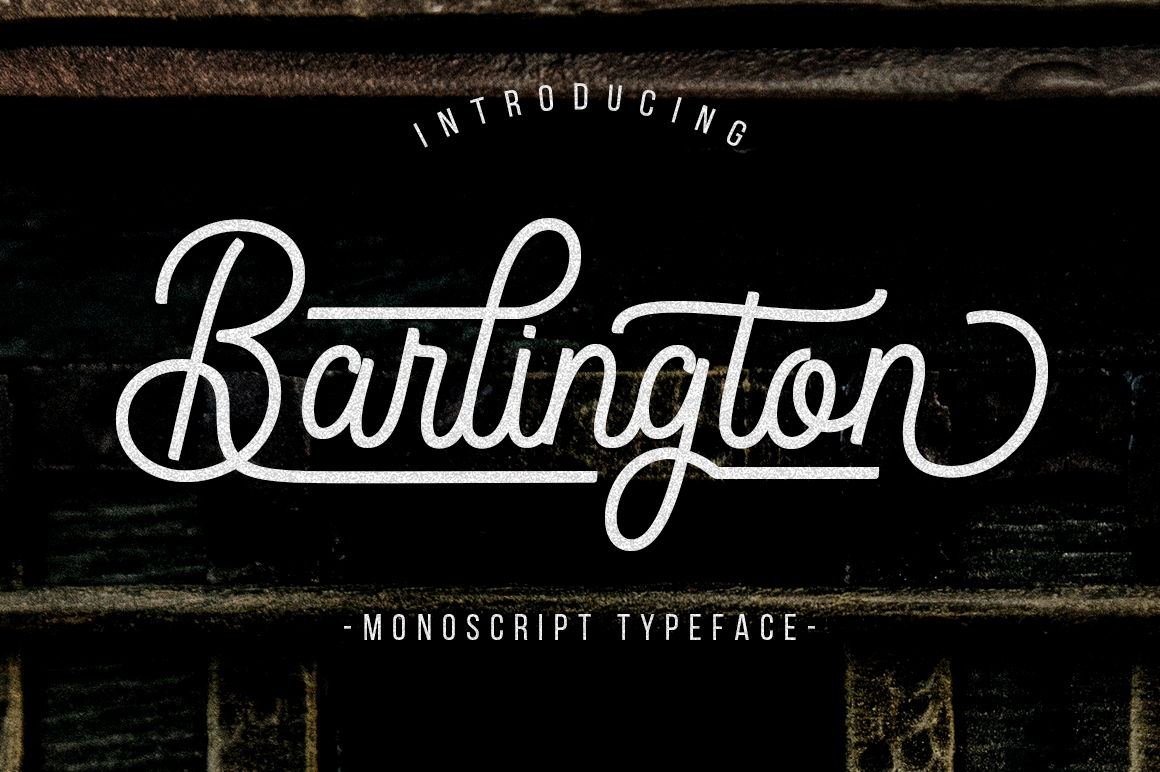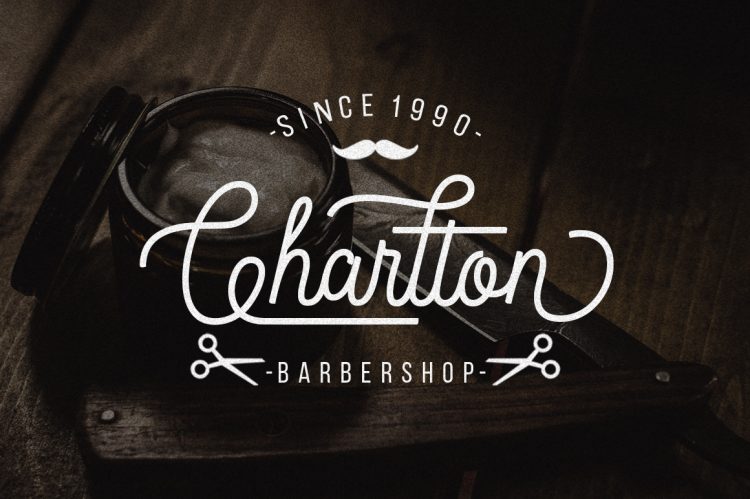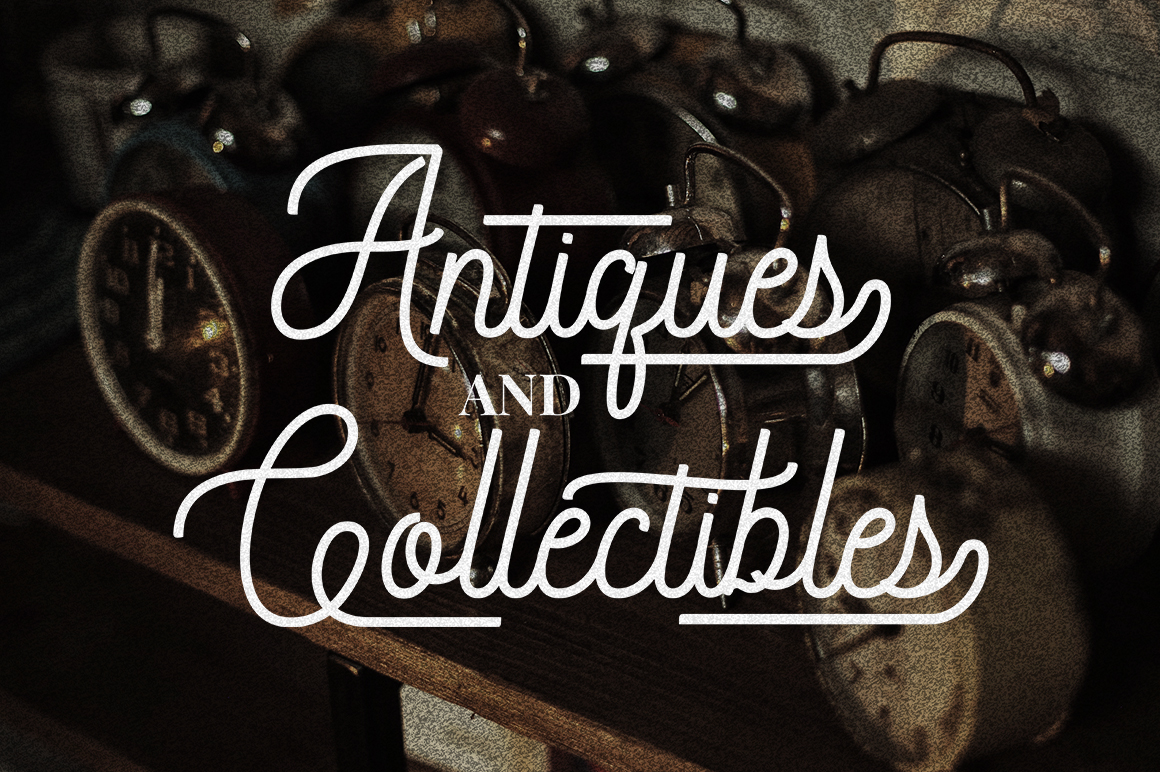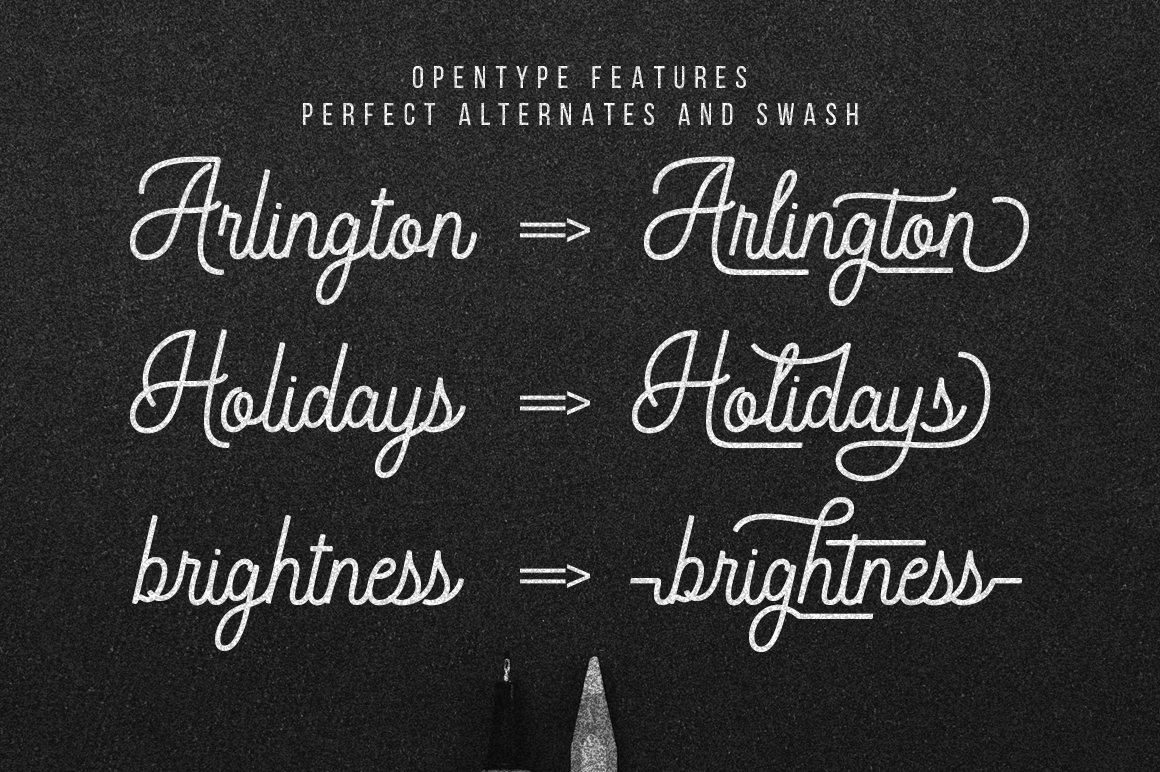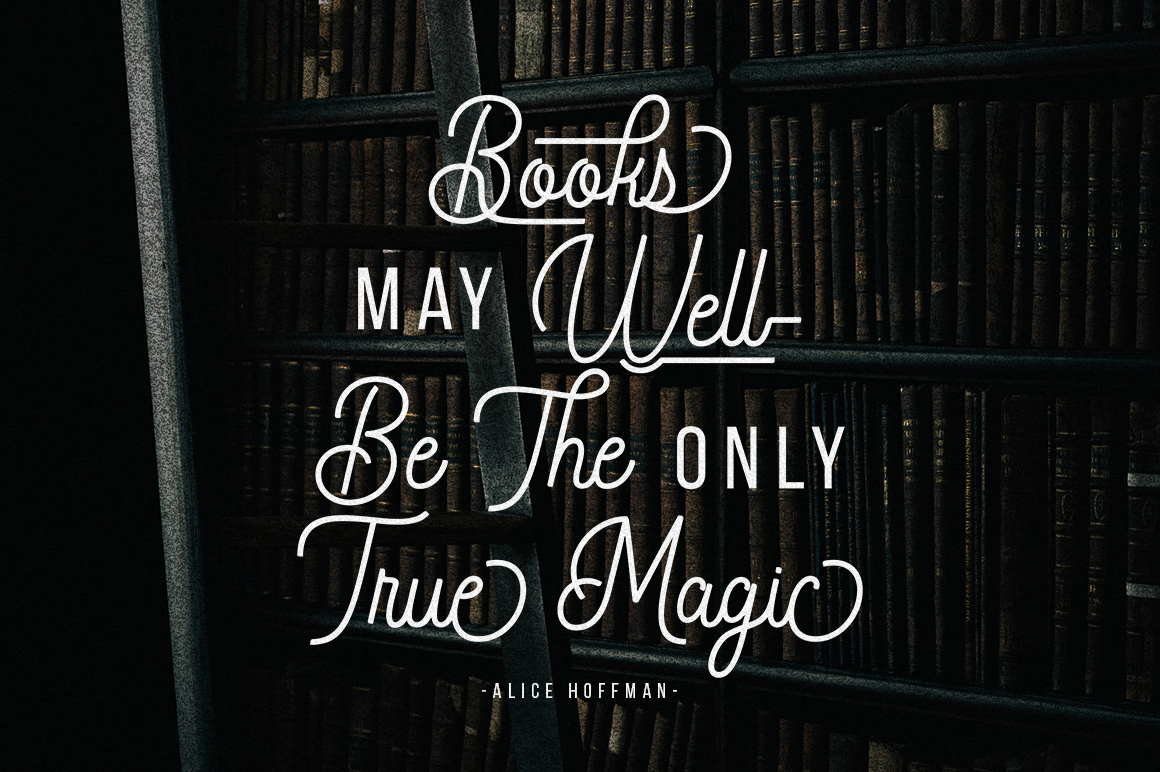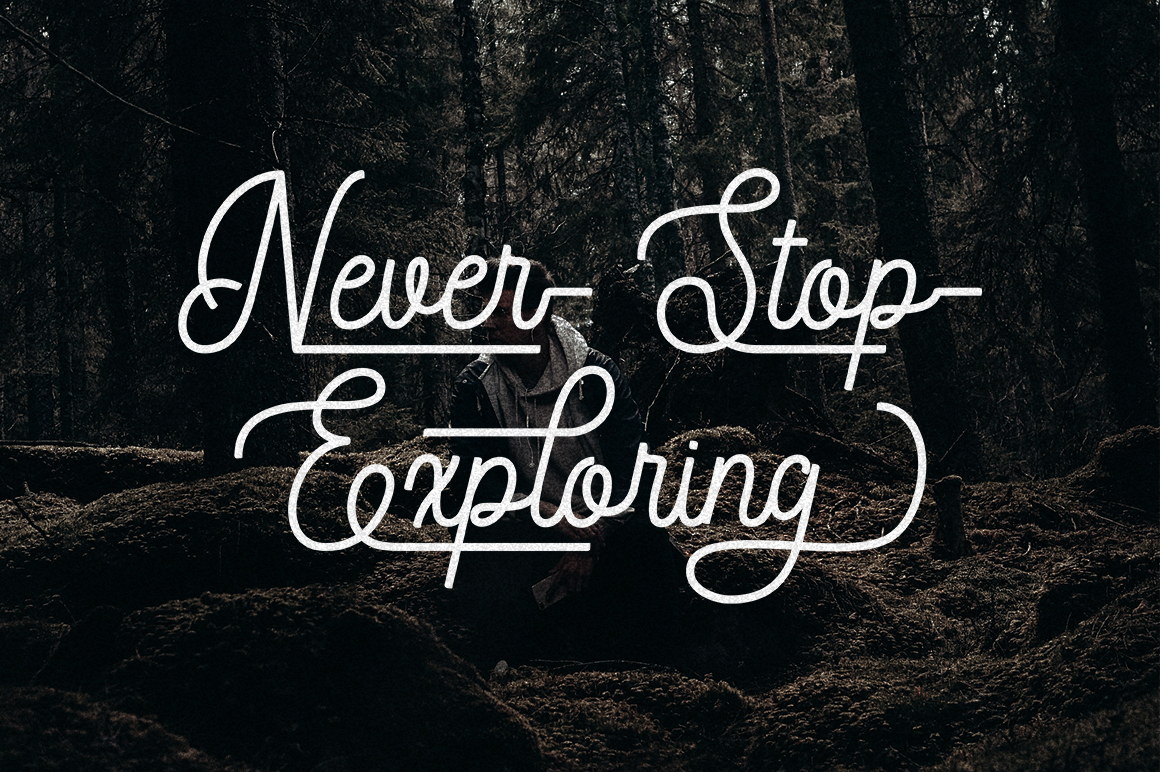
Barlington is a Monoline Script Typeface, a classic and fun vintage script. Combination with classic & modern style fonts. This font can be used easily, even in mixing and matching with other fonts. So that it can provide alternatives and new sensations for designers or craftsmen, in working on various projects. This font you can use for various purposes. Such as logos, wedding invitations, t-shirts, letterhead, signage, labels, news, posters, badges, etc.
Barlington comes with uppercase letters, lowercase letters, numbers, punctuation, and so many variations on each character including OpenType alternatives, and multilingual support.